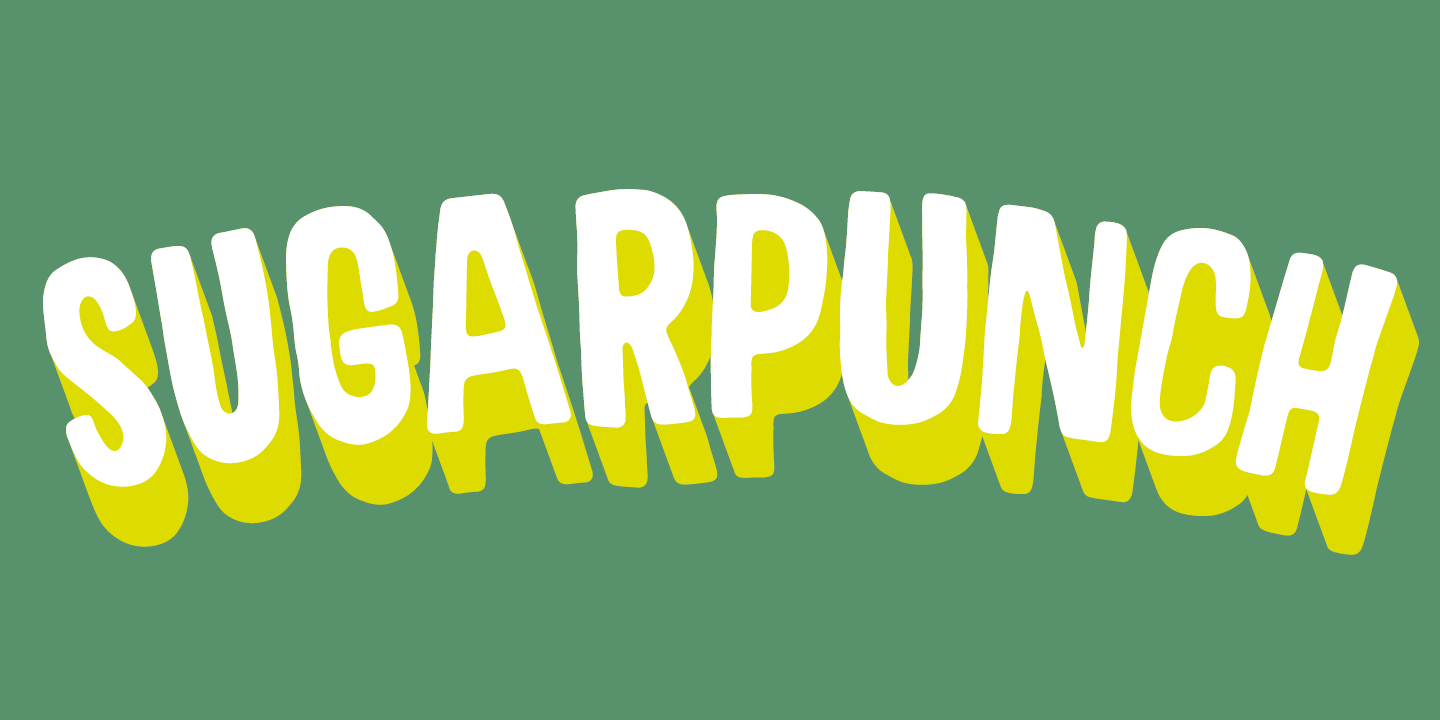
Sugarpunch Font is perfect for candy store branding, sweet bakery signage, ice cream parlor logos, children's party invitations, bubblegum packaging design, colorful toy advertisements, fun social media graphics, playful app interfaces, sugar-themed merchandise, and energetic youth marketing campaigns.
What makes Sugarpunch Font so exciting is its explosive sweetness that perfectly captures the high-energy rush and irresistible appeal of sugar-powered fun. This vibrant display typeface features bouncy letterforms, candy-inspired curves, and punch-packed styling that creates an immediate burst of joy and sweet excitement, making it the ultimate choice for brands that want to communicate pure fun, sweet indulgence, and the unstoppable energy of sugar-fueled adventures.
The Sugarpunch Font family includes regular, bold, outline, and bubble versions, along with candy symbols, sweet treats motifs, colorful decorations, and sugar-rush inspired ornamental elements. Each style maintains the font's signature sweet punch while providing designers with versatile options for creating genuinely delicious communications that make audiences crave sweetness and smile with pure delight.
Whether you're designing for confectionery companies or fun children's brands, Sugarpunch Font Free Download delivers the sweet impact needed to communicate irresistible appeal and candy-coated excitement. The font's sweetly crafted letterforms ensure excellent readability while maintaining its distinctive sugar-rush character that resonates with anyone who loves sweet treats and high-energy fun.
This deliciously energetic typeface works wonderfully across both colorful packaging materials and vibrant digital candy platforms. The Sugarpunch Font maintains its sweet punch appeal whether displayed on candy wrappers or playful gaming interfaces, making it essential for brands that celebrate the pure joy of sweetness and sugar-powered excitement.
Pack a sweet punch with Sugarpunch Font and experience typography that explodes with the irresistible energy of candy-coated fun and sugar-rush excitement.